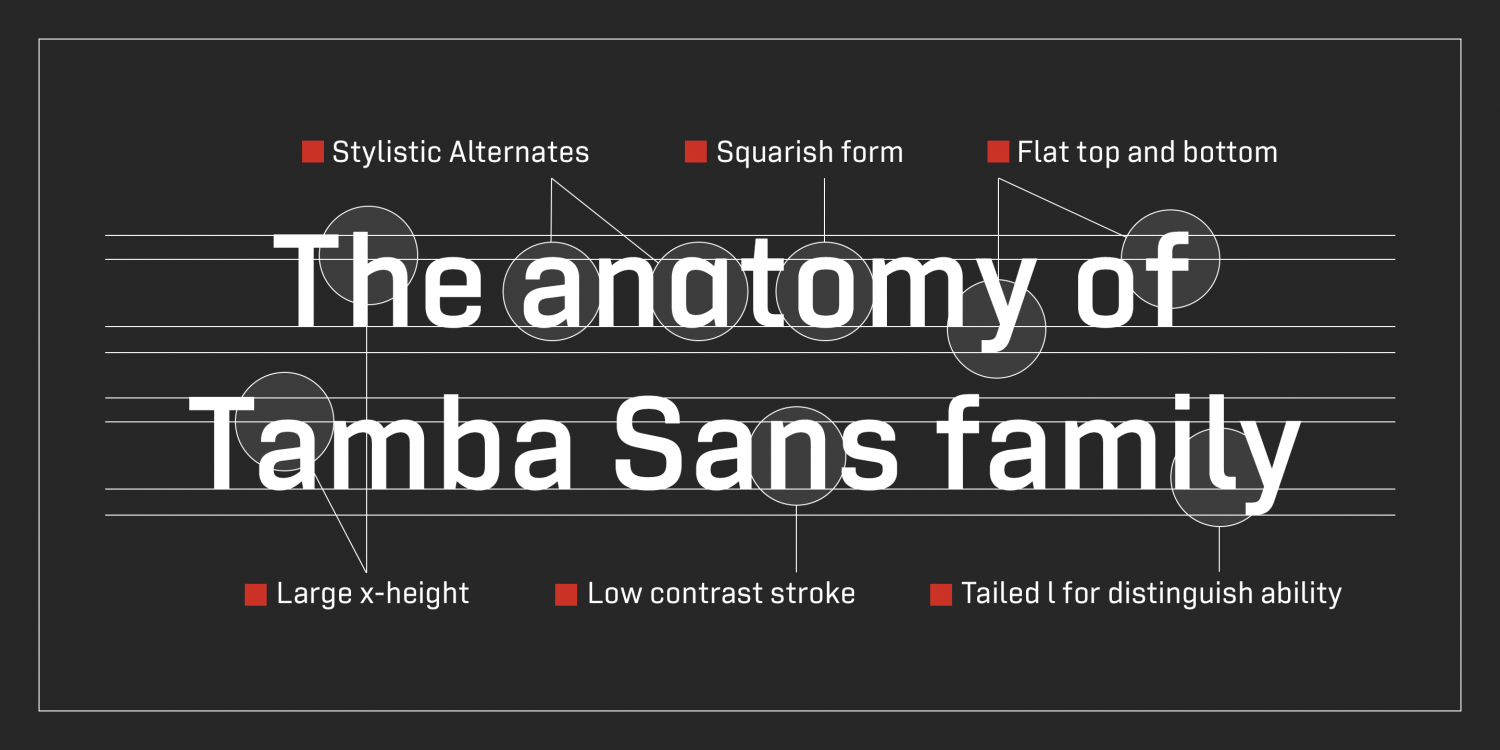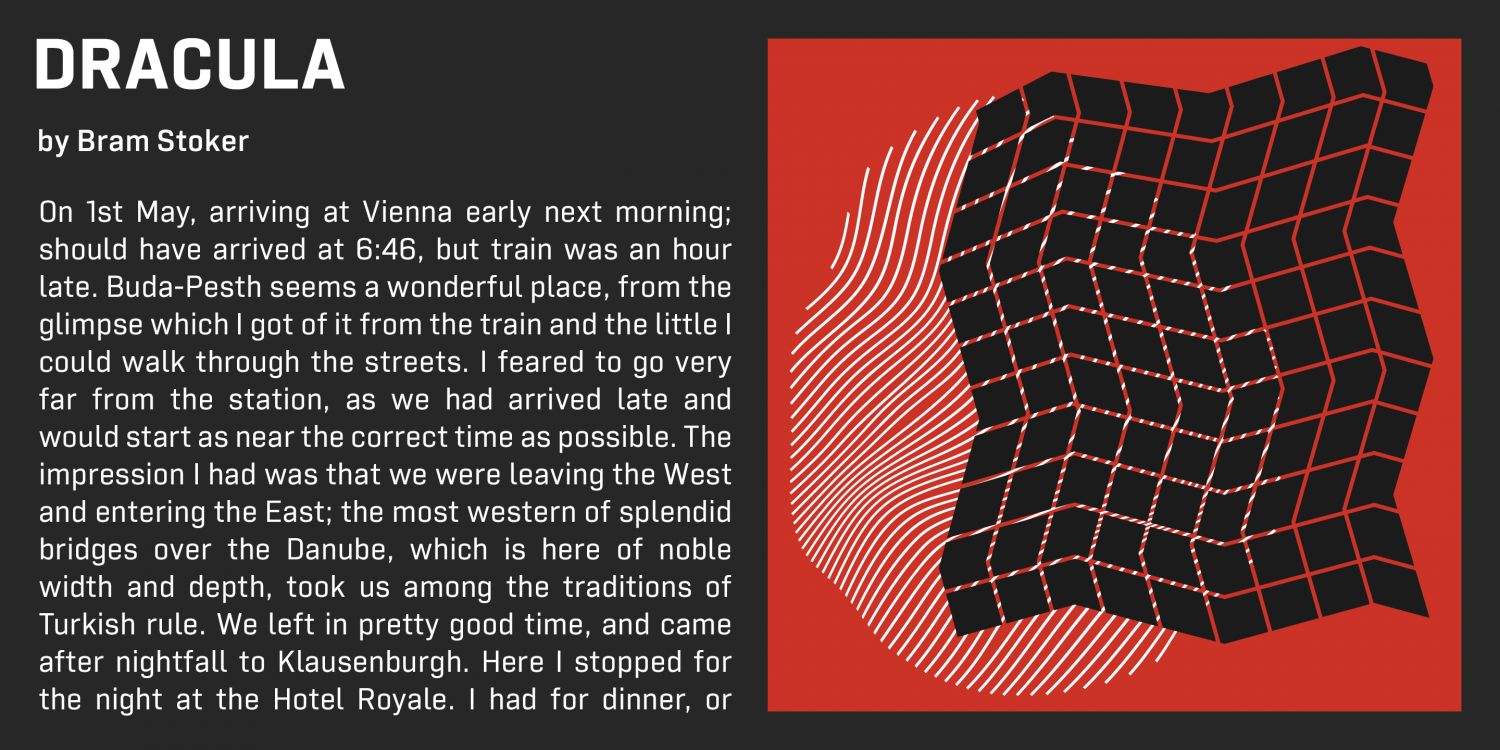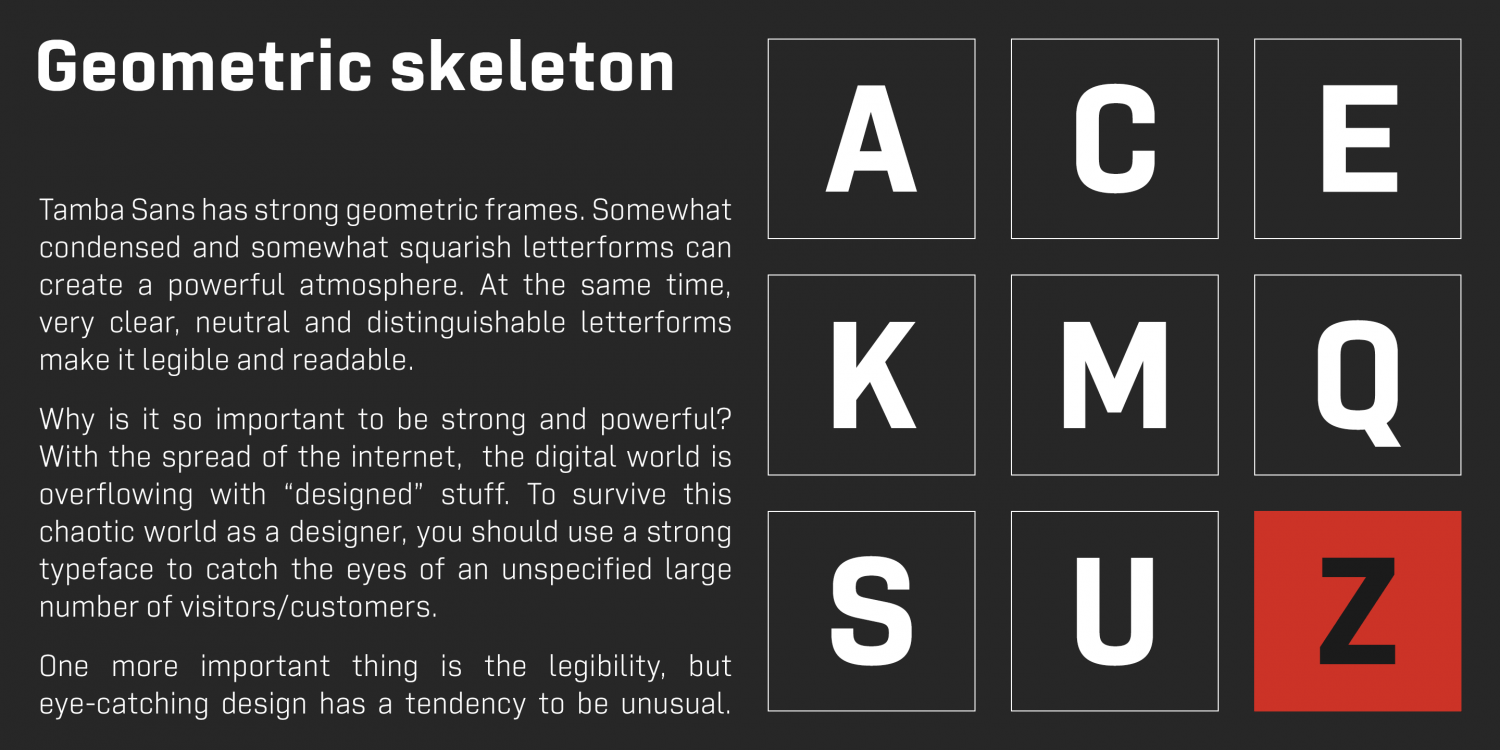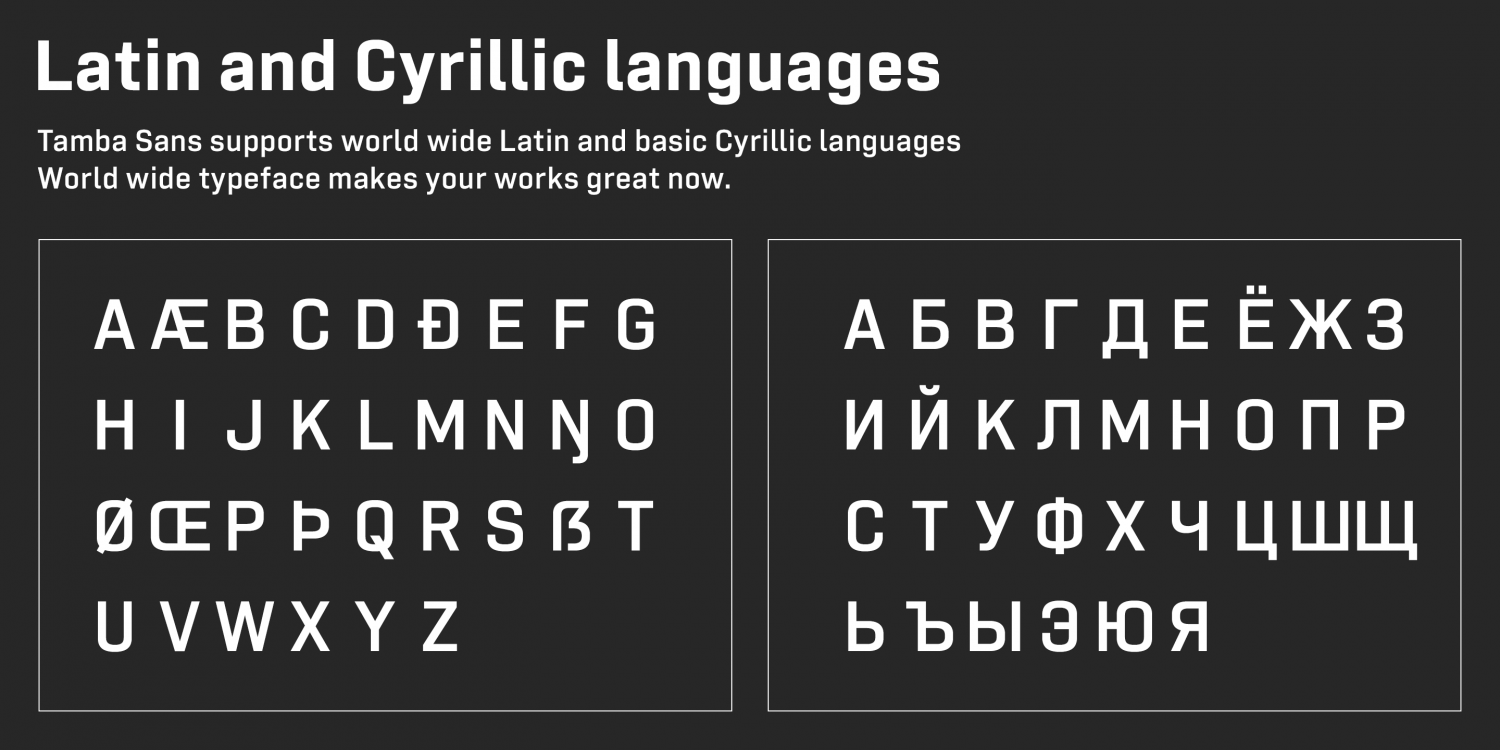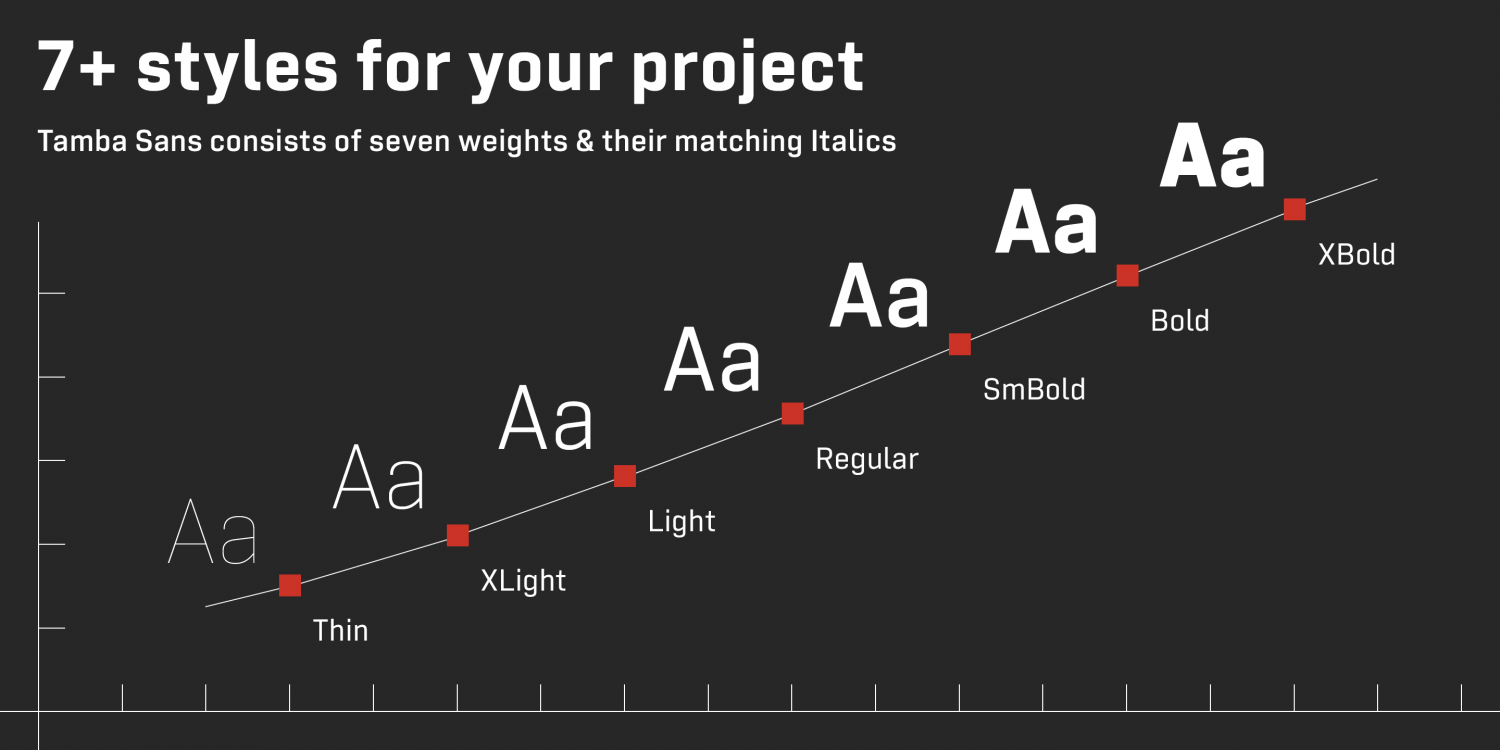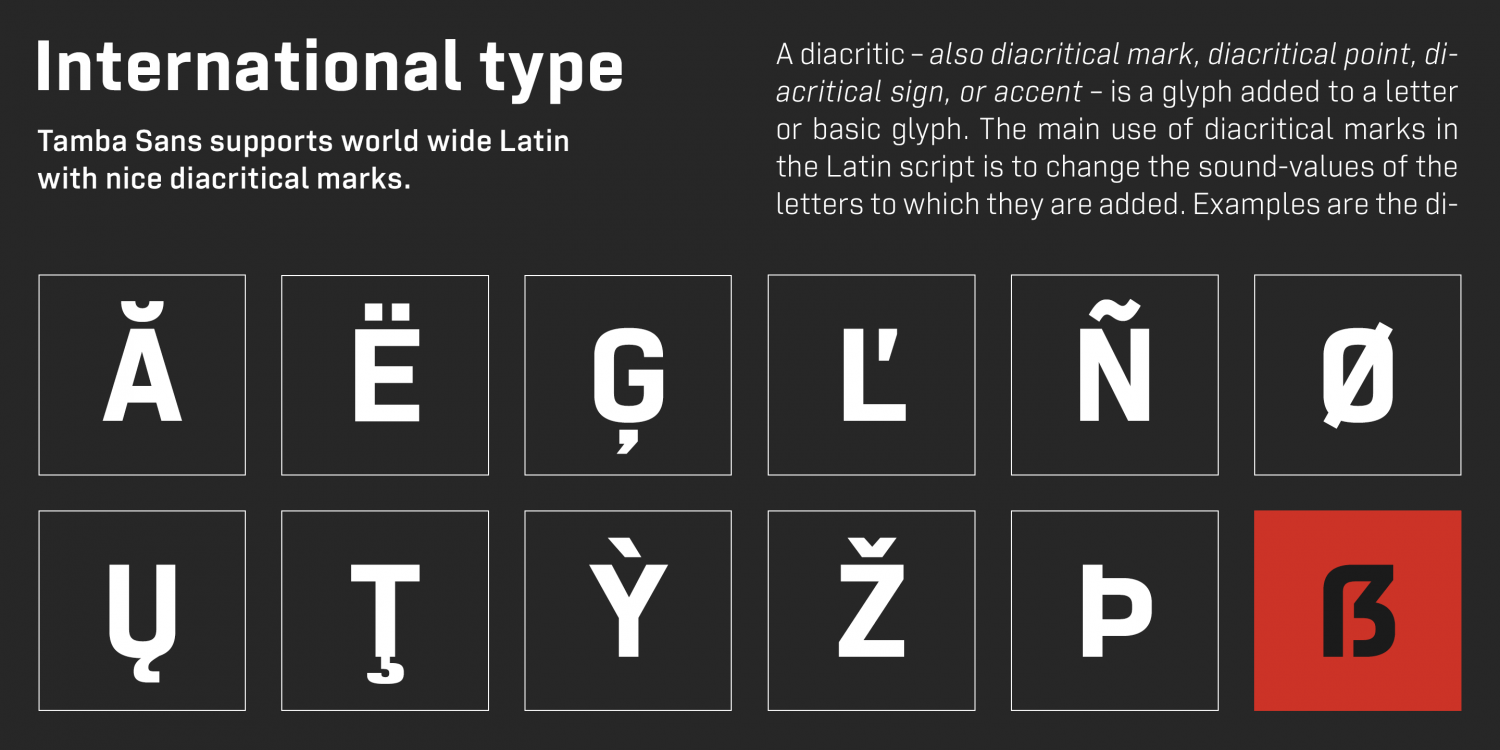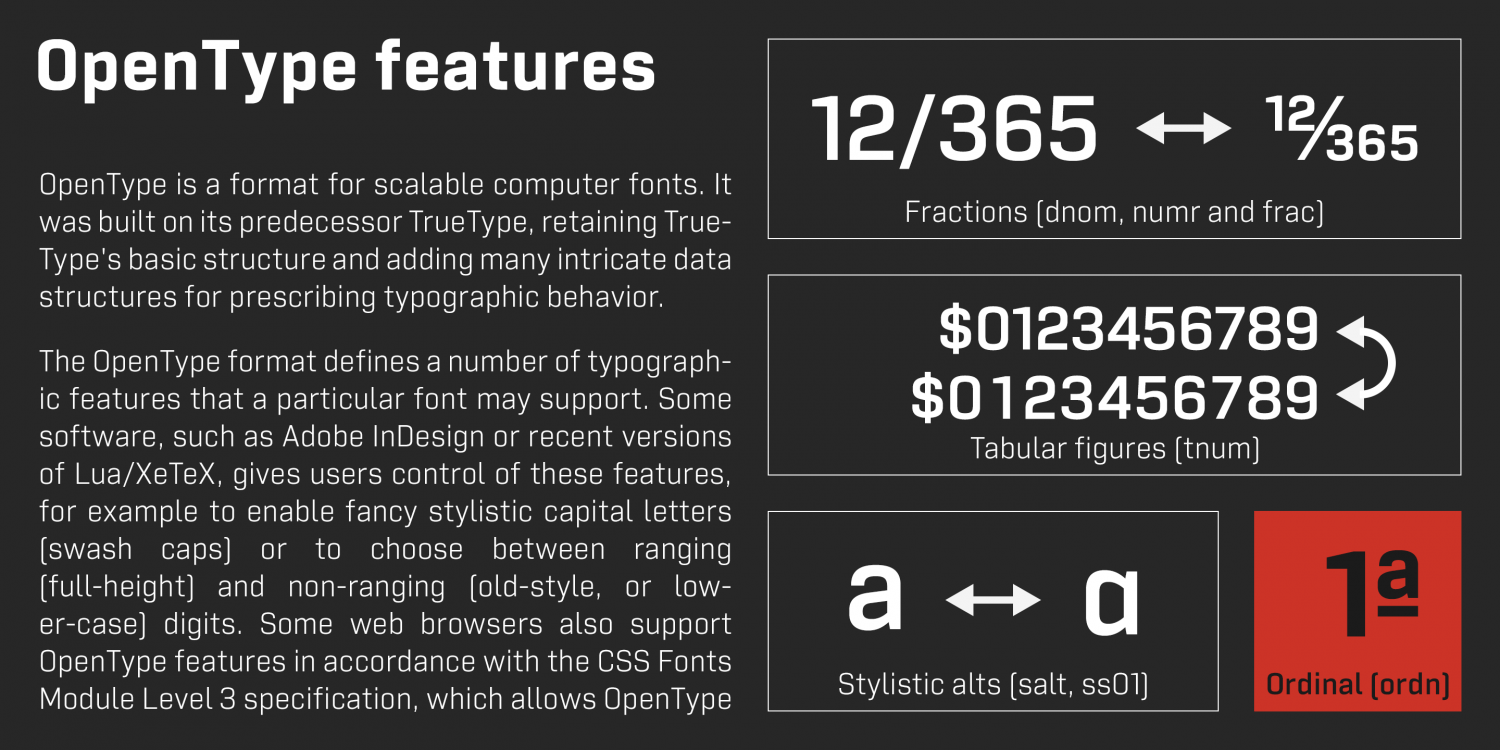
Tamba Sans
About Tamba Sans
Tamba Sans has strong geometric frames. Somewhat condensed and somewhat squarish letterforms can create a powerful atmosphere. At the same time, the very clear, neutral and distinguishable letterforms make it legible and readable. With the spread of the…